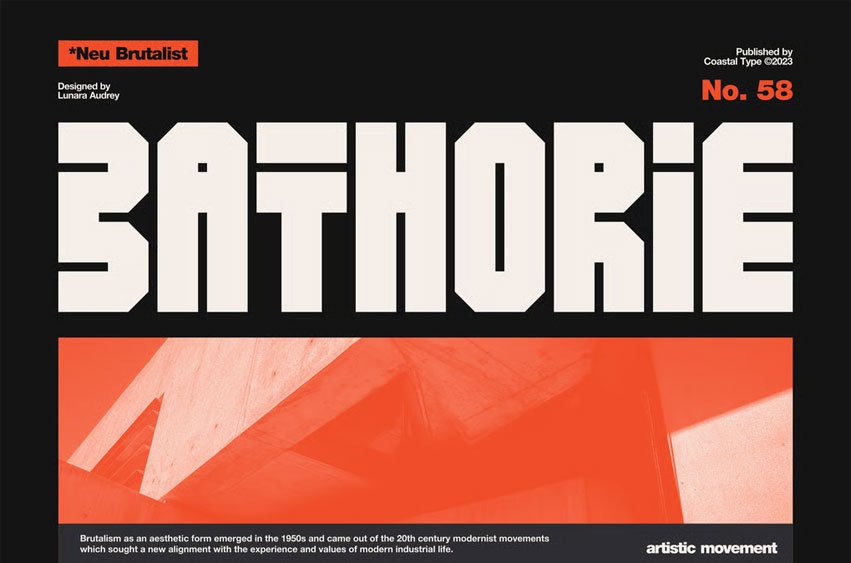
Bathorie Font Step into a world where typography meets structure, where every letter echoes the precision of industrial design and the raw, unapologetic strength of brutalist architecture. Bathorie, our latest creation, is not just a typeface; it’s an experience—a journey into the bold and unyielding.
Bathorie’s foundation lies in its rigid octagonal shape, meticulously crafted with 45-degree cuts that demand attention. Each letter is a testament to the precision found in industrial settings, translating into a typeface that stands tall in the realm of design.
The geometric harmony of Bathorie brings a touch of elegance to its robust form. Inspired by the clean lines and balanced proportions of brutalist architecture, this typeface transcends the ordinary, making a statement that resonates in the modern design landscape.
- Unicase
- Punctuation & Number
- Alternate Characters
Whether you’re crafting a logo, designing a website, or creating impactful headlines, Bathorie adapts to your creative vision. Its versatility makes it a powerful tool for designers seeking a bold, contemporary edge in their projects.
Bathorie Font Preview